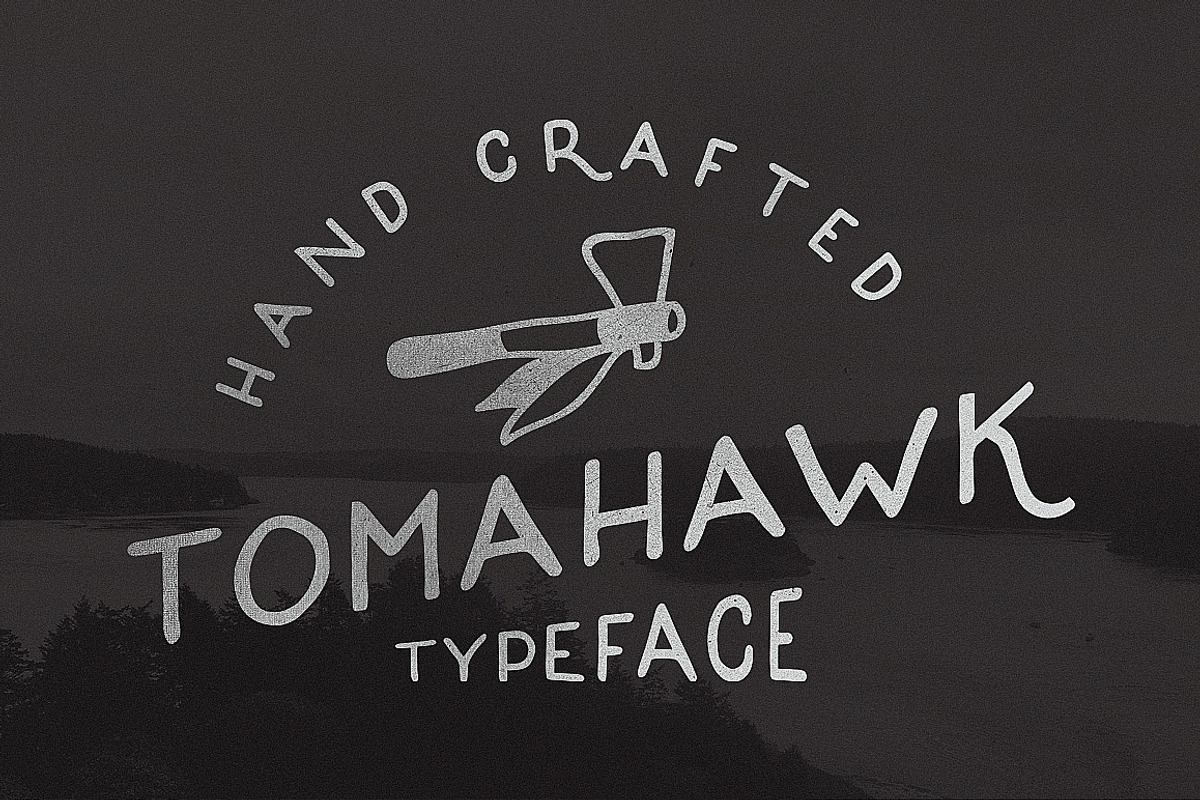
Tomahawk — Vintage Font Free Download is a bold and rugged typeface inspired by classic vintage design and retro Americana. With its strong letterforms and distressed textures, Tomahawk is perfect for branding, signage, t-shirt designs, logos, posters, and projects that evoke a nostalgic, old-school vibe.
Tomahawk — Vintage Font Free Download adds a touch of rustic charm and timeless style to your typography. Whether you're creating a logo for a barbershop, a vintage-inspired event poster, or a custom product label, this font brings personality and history to your design. Download it today and let Tomahawk give your next project a vintage edge!